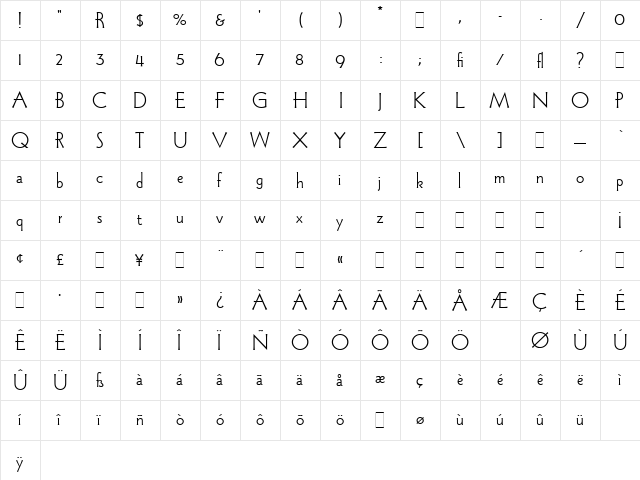
Wade Sans Light LET Plain Font Preview
Wade Sans Light LET Plain
Design Context for Wade Sans Light LET Typeface
Wade Sans Light LET is a composed and adaptable typeface that performs quietly and consistently across a wide range of design contexts. Its slender proportions lend an understated elegance to any composition.